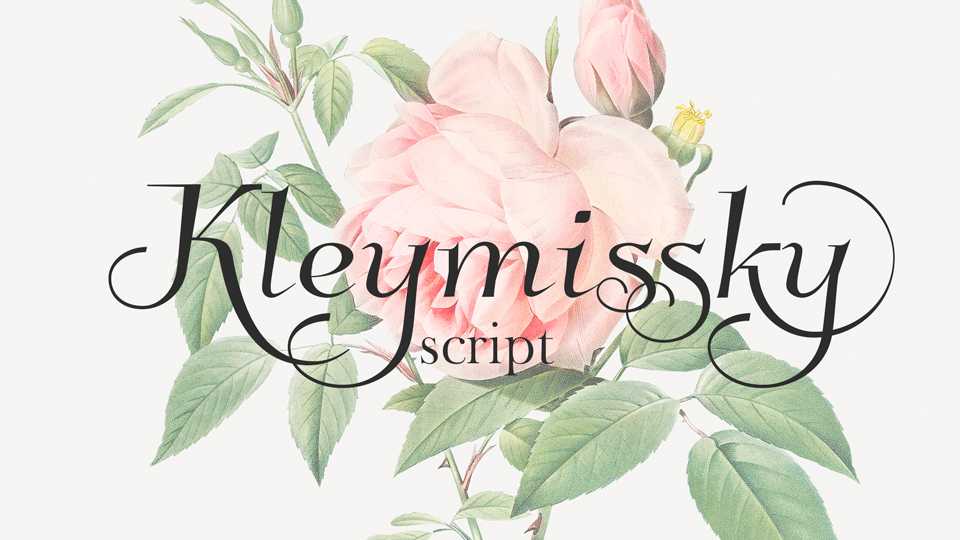
Download Kleymissky font, a fancy script with elegant and charming feel, a lot of alternates and decorative elements. Kleymissky font is ideal for weddings, branding, logo, feminine designs, fashion and media.
Designer: Grzegorz Luk